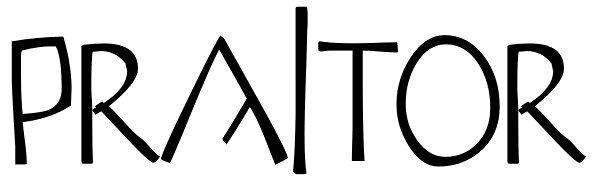
Praitor
Praitor is based on a devotional inscription to the goddess Diana found a short distance from Rome in 1887. It is an early style from before 100 BC and has some characteristics of Etruscan lettering. It's a rough, strong font which works very well...